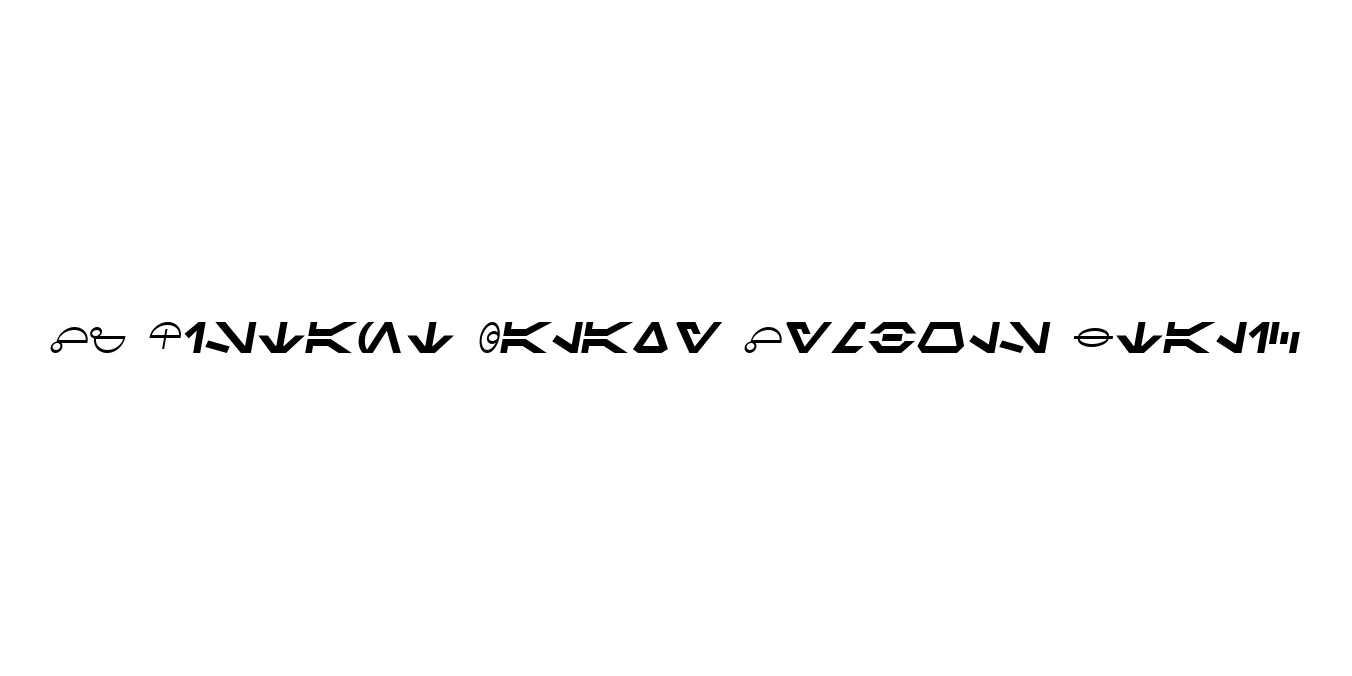
SF Distant Galaxy Symbols Italic
Designed by ShyFoundry (Derek Vogelpohl)
| Category | Dingbats |
| Designer | ShyFoundry (Derek Vogelpohl) |
SF Distant Galaxy Symbols Italic is a specialized typeface created by ShyFoundry, inspired by the legendary aesthetics of the Star Wars franchise. This specific variation within the Distant Galaxy family focuses entirely on symbols, dingbats, and galactic icons rather than traditional alphanumeric characters. It captures the essence of futuristic technology and ancient space-faring civilizations, providing a comprehensive library of visual elements that fans and designers can use to replicate the feel of the cinematic universe.
The Italic styling of this font adds a sense of motion and urgency to the symbols, making them ideal for dynamic layouts and high-energy designs. From rebel insignias to empire-inspired logos, the font serves as a versatile toolkit for sci-fi enthusiasts. It is widely recognized in the fan community as a go-to resource for creating authentic-looking merchandise, digital assets, and atmospheric graphic design projects that require a touch of galactic flair.
SF Distant Galaxy Symbols Italic Best Uses
Creating custom logos and icons for science fiction-themed projects.
Adding authentic galactic symbols to illustrations and creative tributes.
Designing posters and invitations for sci-fi conventions or themed parties.
Using unique space-themed icons for social media assets and web decorative elements.